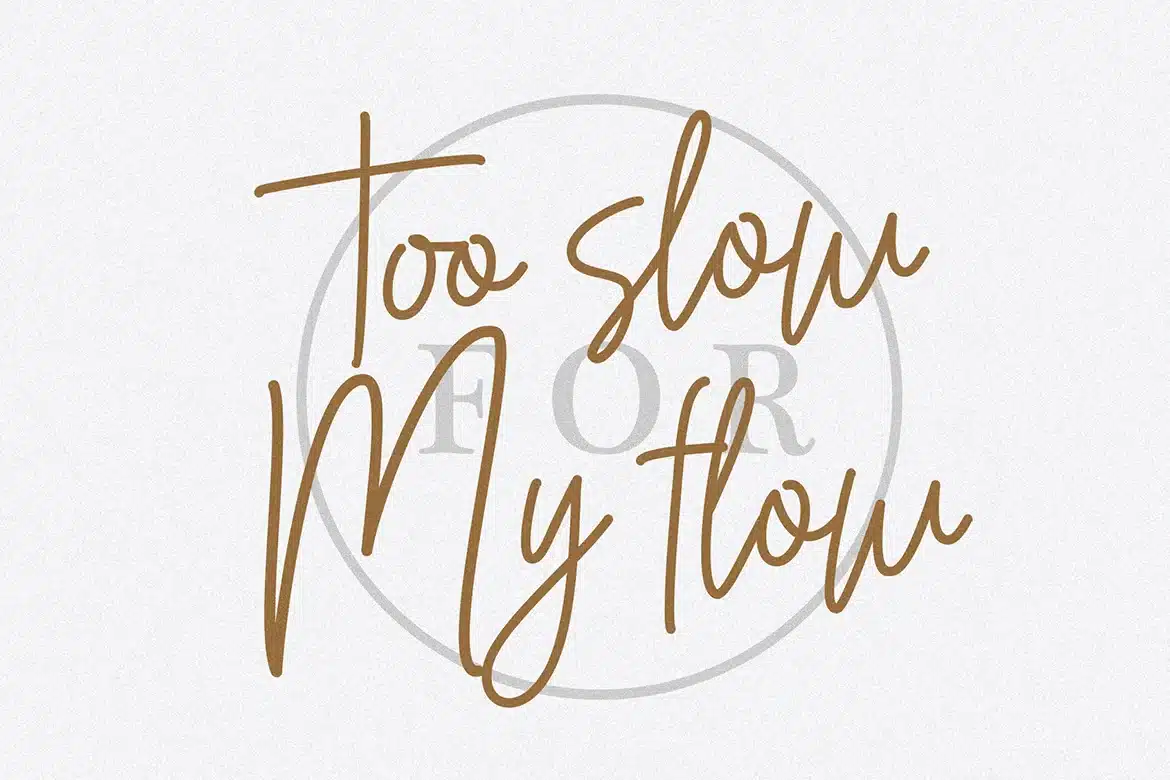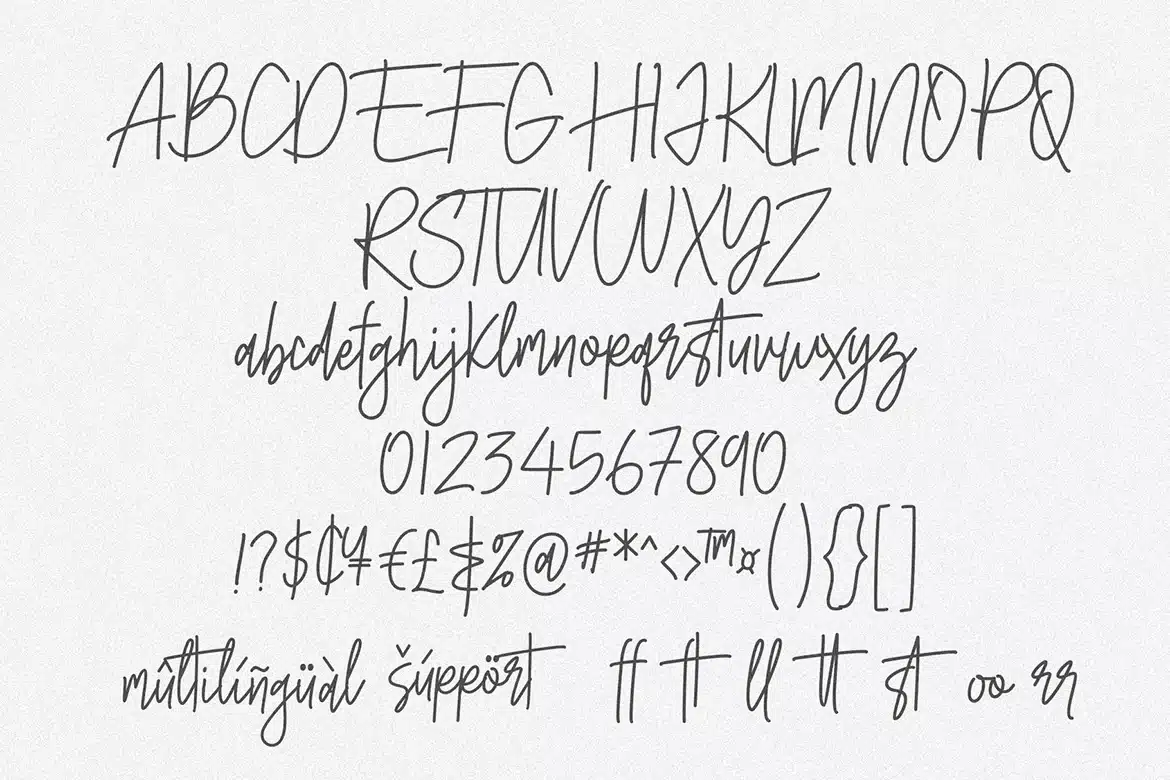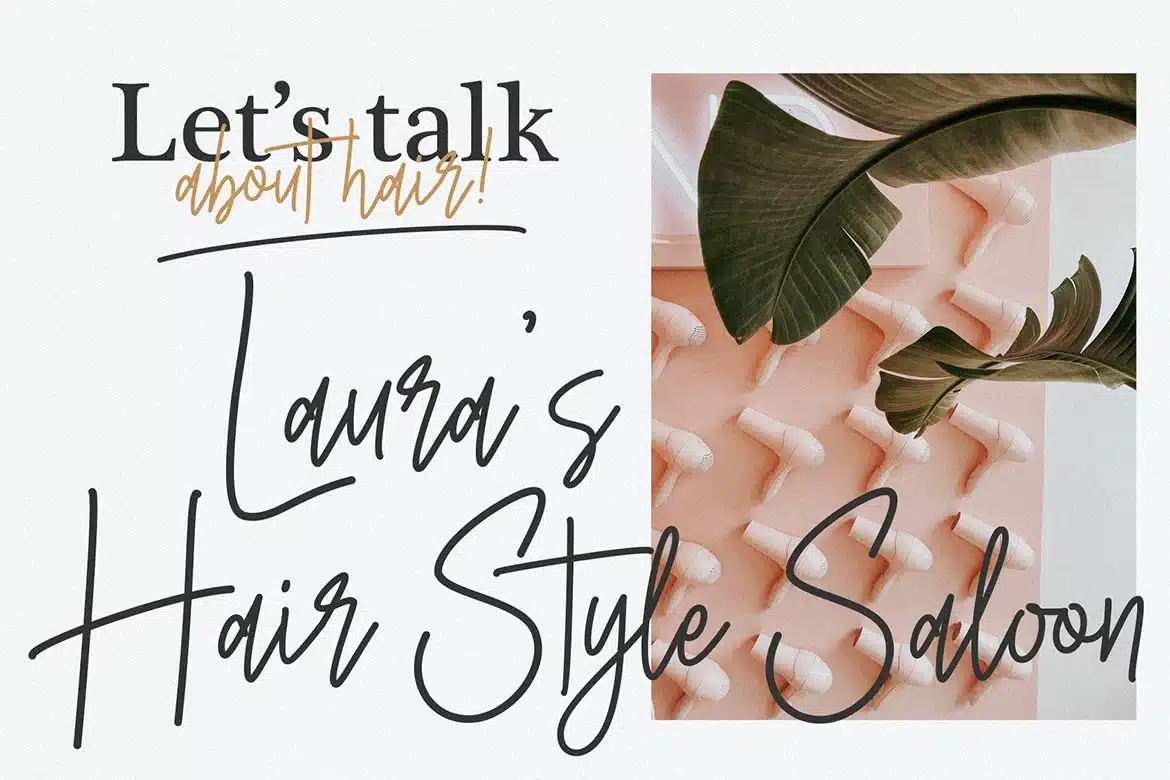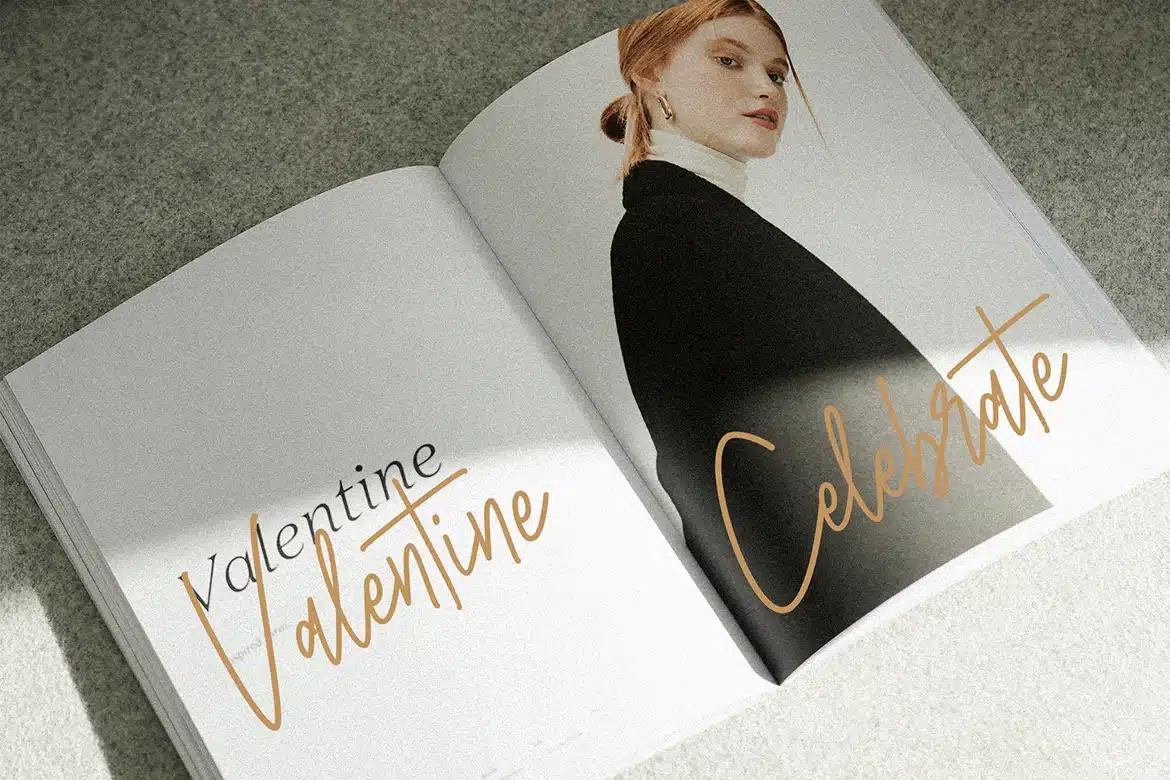
Betterhost – Modern Monoline Script Font
The Betterhost Signature a new modern Monoline font script. This stunning Monoline script font is a elegant, classy, stylish and perfect for any awesome projects that needs a handwritten touch.
it features a varied baseline, smooth lines, gorgeous glyphs, This font is PUA-coded which means you can access all the amazing glyphs and swashes with ease!
The Betterhost Signature is great for wedding invitation card designs, logotypes, business card designs, advertisements, product designs, stationery, product packaging, quotes and so on.